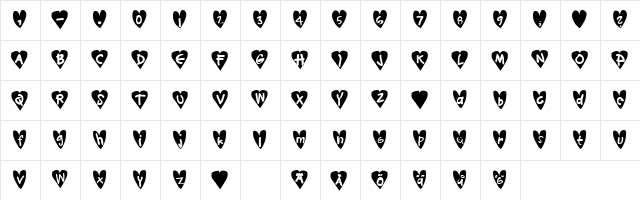
Djellibejbi Hearts Regular
Design Context for Djellibejbi Hearts Typeface
Djellibejbi Hearts is a composed and adaptable typeface that performs quietly and consistently across a wide range of design contexts.